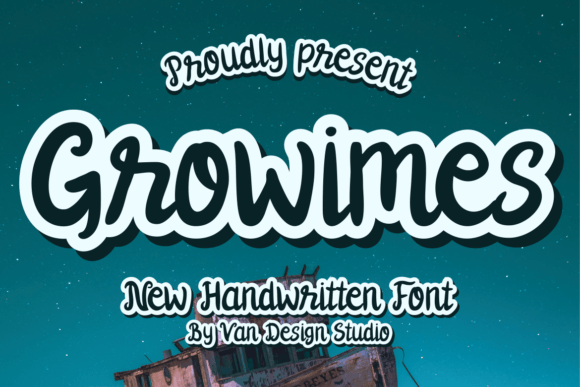
Unleash the charm and elegance of handwritten artistry with Growimes Font, a captivating script font that exudes personality and warmth. Step into a world of creativity where your words dance with grace, leaving an unforgettable impression on all who behold them.
Growimes Font is not just a font; it's an expression of your individuality, an extension of your artistic flair. Its meticulously crafted characters, each with its own unique charm, bring a touch of magic to your digital creations. Whether you're designing wedding invitations, crafting heartfelt letters, or creating eye-catching headlines, Growimes Font is your perfect companion.
Dive into the realm of handwritten beauty and let your imagination soar. Growimes Font's enchanting curves and flowing strokes add a touch of romance and nostalgia to every project. Its versatility knows no bounds, seamlessly adapting to a myriad of design styles, from classic and elegant to modern and whimsical.
With Growimes Font, you'll discover a font that speaks to the heart and captures the essence of human connection. Its ability to evoke emotions and create a lasting impression makes it an invaluable tool for designers, artists, and anyone looking to add a personal touch to their creative endeavors.
So, embrace the artistry of Growimes Font and embark on a journey of creativity like never before. Let your words take on a life of their own, captivating audiences with their charm and grace. Experience the magic of handwritten beauty and elevate your designs to new heights of elegance and sophistication.